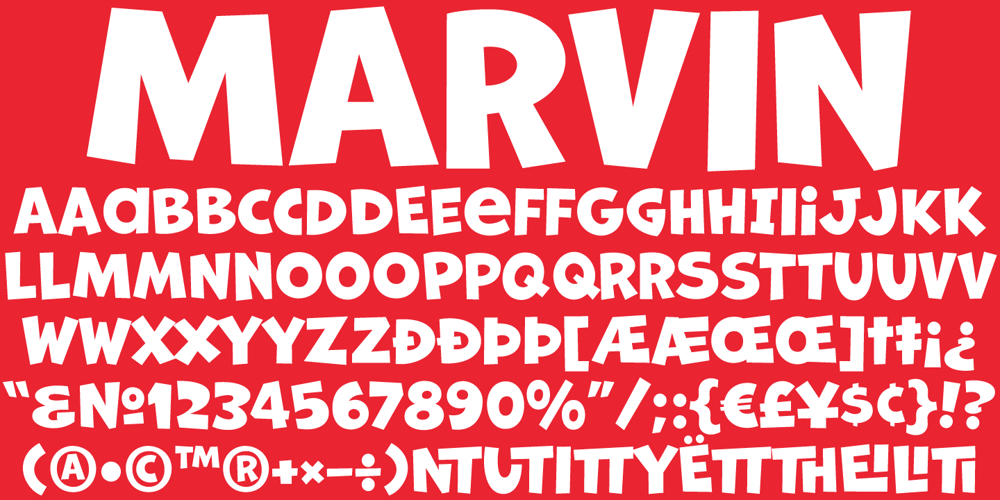
Marvin Font Family was designed by Patrick Griffin and published by Canada Type. Marvin contains 3 styles and family package options. The objective of this font was to try and find out how far back in the designer’s life this obsession with letters began. The challenge was to draw, from memory only, two sets of caps that recall older Looney Tunes and Merrie Melodies lettering. The experiment was a success, which means that the designer’s got it bad since he was, like, four! The Marvin set includes three stylistic variations (Regular, Round and Shadow), with extensive multi-script language support covering Western, Central and Eastern European languages, as well as Cyrillic, Greek and Vietnamese. A few extra alternates and interlocking ligatures are also included, all adding up to over 650 characters in each font. And here we are. Marvin is a great cartoon font that can help you build your very own Illudium Q-36 Space Modulator, so you can trigger that earth-shattering kaboom. Then you’re on your way to claim this planet in the name of Mars. Isn’t it lovely, mm?